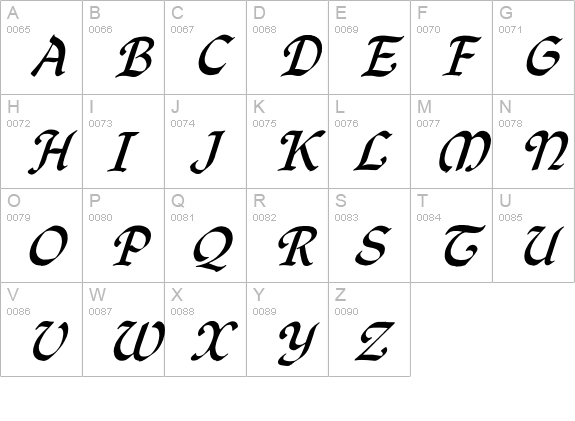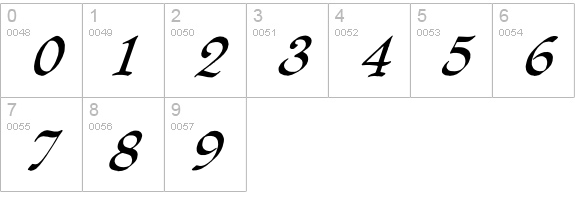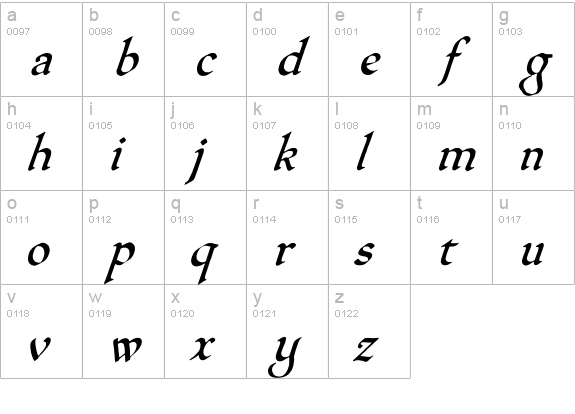
QuillOblique Font Details
QuillOblique is a stunning and elegant font that exudes sophistication and style. With its slanted and flowing design, this typeface adds a touch of modernity to any project. The unique curves and sharp edges of QuillOblique make it perfect for logos, branding, and titles that require a bold statement. This versatile font is ideal for both print and digital designs, making it a must-have for any designer looking to stand out from the crowd. Whether you're working on a poster, website, or packaging, QuillOblique will elevate your design to the next level. The best part? QuillOblique is completely free to download at FontsMarket.com. So go ahead and add this beautiful font to your collection today and watch your designs come to life with its distinctive charm.